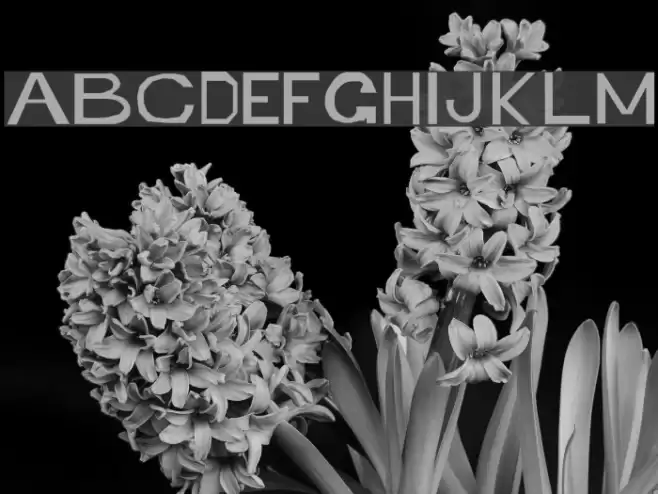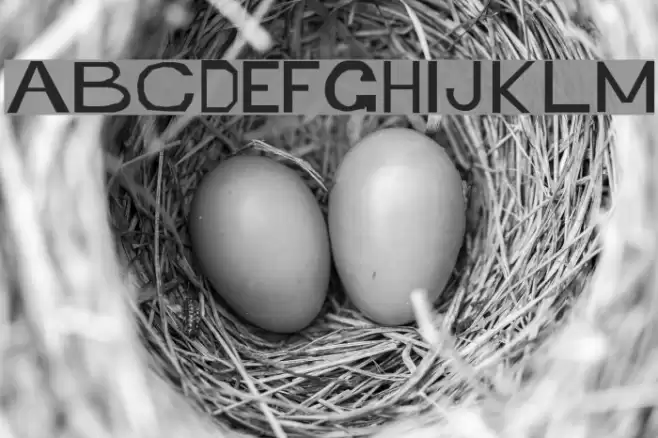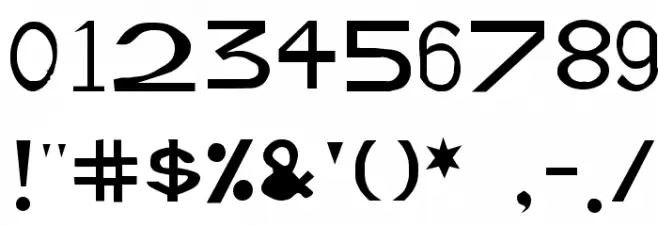
Retardo Emaciated Font
Retardo Emaciated Description
This font features a unique blend of geometric and organic shapes, creating a striking visual contrast. The uppercase letters are bold and angular, with some characters displaying a stencil-like appearance. The lowercase letters maintain a more rounded and softer form, providing a harmonious balance. Numbers are designed with a modern flair, incorporating both straight and curved lines. Special characters are consistent with the overall style, offering a cohesive look. The font's distinct style makes it stand out, suitable for creative and artistic projects.
A bold, geometric font with a mix of angular and rounded elements from Uncategorized fonts.
- Proposed Projects: Ideal for branding, posters, album covers, and modern art projects.